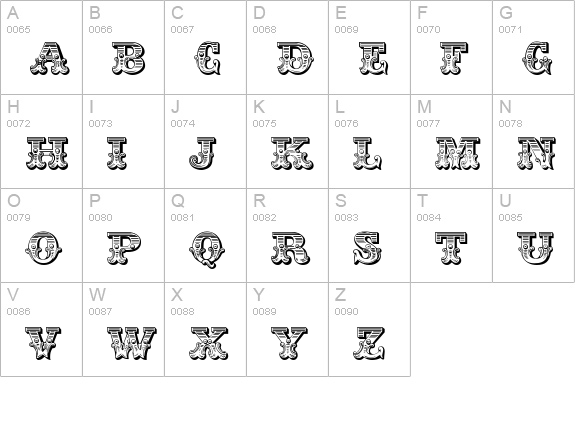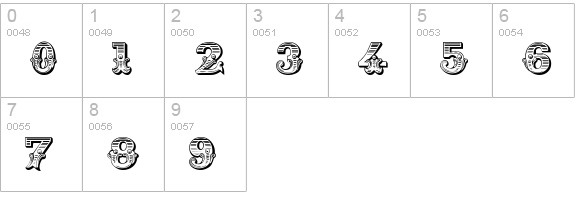
JFRingmaster Font Details
JFRingmaster font is a stunning display typeface that will add a touch of elegance and excitement to any project. With its unique and intricate design, this font is perfect for creating eye-catching headlines, logos, and branding materials. The JFRingmaster font features beautifully crafted letterforms with thin, curved lines that create a sense of movement and playfulness. Each character is meticulously designed to capture attention and make a lasting impression. One of the standout features of JFRingmaster font is that it is available for free. Yes, you heard it right! This remarkable font can be freely downloaded at FontsMarket.com, allowing you to add a touch of sophistication and creativity to your designs without breaking the bank. Whether you are a professional designer or a passionate hobbyist, JFRingmaster font is a must-have in your font collection. Its versatility makes it suitable for a wide range of design projects, from advertising and packaging to social media graphics and invitations. So why wait? Go ahead and download JFRingmaster font today from FontsMarket.com and start creating captivating designs that will leave a lasting impression. With its stunning design and the fact that it is freely available, this font is sure to become a favorite among designers and creatives alike.